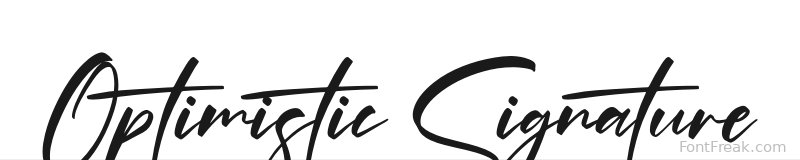
Optimistic Signature
The Optimistic Signature font by Perspectype Studio is a beautifully crafted script typeface that exudes a sense of warmth and creativity. Released in 2021, this font is characterized by its flowing, handwritten style, which features elegant curves and a friendly demeanor. The stroke weight is relatively consistent, offering a smooth reading experience, while the subtle contrast adds a touch of sophistication. The generous spacing between the letters enhances legibility, making it versatile for various applications.
This font is ideal for a range of use cases, including wedding invitations, where its charming aesthetic can add a personal touch to special events. It also works wonderfully for branding materials, such as logos and business cards, helping small business owners convey a sense of approachability and creativity. Additionally, the Optimistic Signature font is perfect for restaurant menus, allowing dining establishments to present their offerings in a stylish manner. Content creators will find this font a great choice for social media graphics and blog headers, where it can capture attention and convey a unique personality.
The primary audience for this font includes graphic designers seeking to enhance their projects, small business owners looking to establish a distinctive brand identity, and content creators aiming to engage their audiences effectively. The Optimistic Signature font free download makes it accessible for anyone wishing to incorporate its delightful style into their work.
What truly sets the Optimistic Signature font apart is its ability to evoke a sense of joy and optimism, making it perfect for projects that require an uplifting touch. Its unique blend of elegance and friendliness ensures it stands out in a crowded font landscape, providing users with a versatile tool for creative expression.